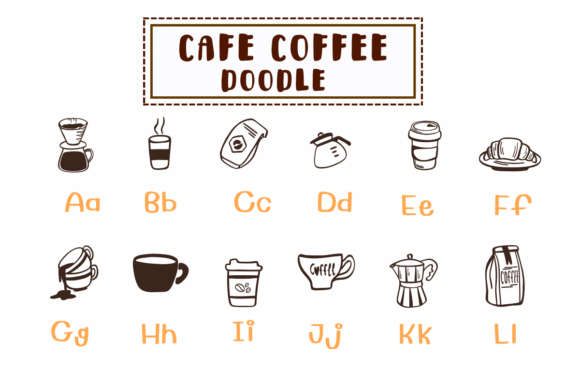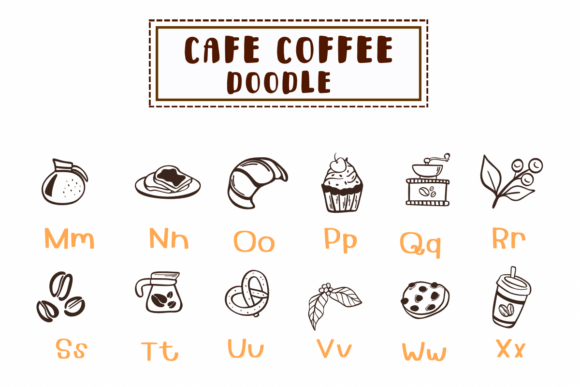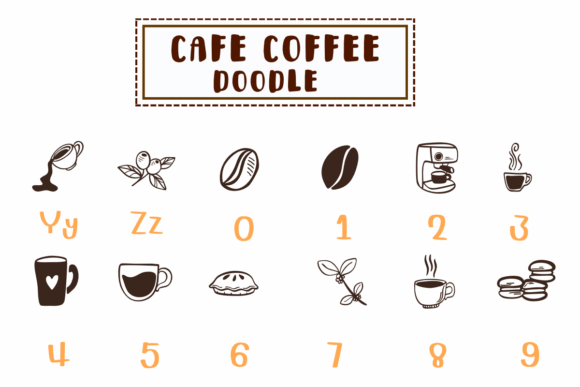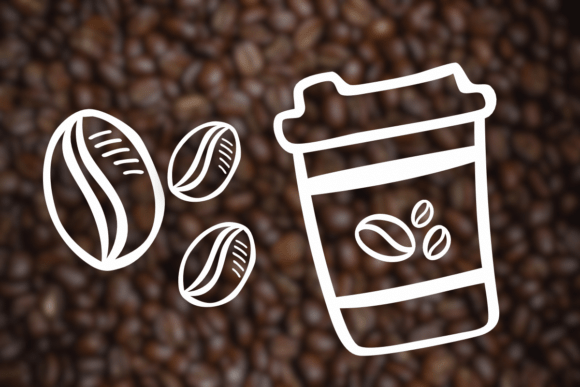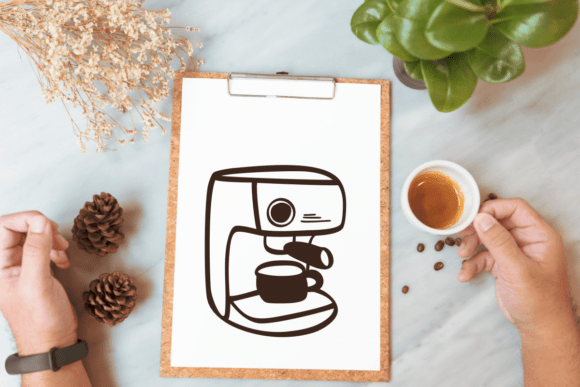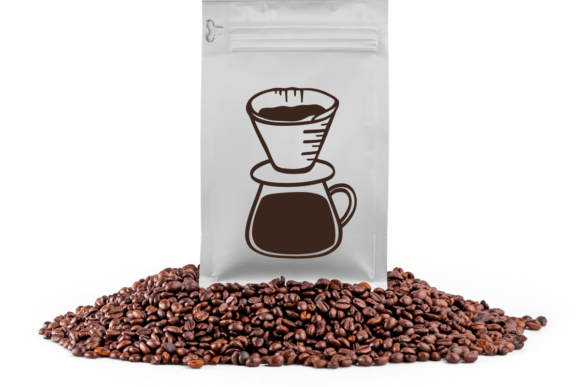
The Perfect Blend for Your Creative Projects
Have you ever found yourself sipping on a warm cup of coffee, surrounded by scribbled notes and half-baked ideas? That’s exactly where the magic happens for many creatives. The moment when inspiration strikes, and you’re eager to bring your vision to life. For designers, this moment is all about finding the right tools to enhance their projects.
Enter the Cafe Coffee Doodle Font, a delightful dingbats font with a delicious theme that’s sure to perk up your creative juices. This charming font is perfect for adding a personal touch to wedding invitations, DIY crafts, decorations, logos, and many other creative ideas. With the Cafe Coffee Doodle Font, you’ll be able to infuse your designs with a warm, inviting atmosphere that’s sure to captivate your audience.
Cafe Coffee Doodle Font Key Features
- Font Style: Hand-Drawn, Whimsical, Coffee-Themed
- Character Count: 250+ glyphs, including Latin, Cyrillic, and Greek alphabets, as well as various coffee-related symbols
- Unique Characteristics: Features a unique, hand-drawn design with subtle texture and imperfections, giving it a charming, artisanal feel
Cafe Coffee Doodle Font Review
Overall, I think the Cafe Coffee Doodle Font is a fun, playful font that’s perfect for those who want to add a touch of whimsy to their designs. ✨ The font’s doodle-like quality makes it great for illustrations, logos, and even social media graphics. It’s also quite versatile and can be used in a variety of contexts, from food and beverage branding to children’s products.
Here are some of the things that work well with this font:
- ✨ Unique doodle-like quality that sets it apart from other fonts
- ✨ Highly versatile and can be used in a variety of contexts
- ✨ Great for illustrations, logos, and social media graphics
- ⚠️ The font may be too playful or whimsical for more serious or professional designs
- ⚠️ Some users may find the font’s doodle-like quality distracting or overwhelming
- ⚠️ The font may not be suitable for text-heavy designs or body copy
Overall, I think the Cafe Coffee Doodle Font is a great choice for designers who want to add a touch of fun and whimsy to their designs. While it may have some limitations, it’s a great option for illustrations, logos, and social media graphics.
Use the Cafe Coffee Doodle Font to create a whimsical and playful atmosphere in your designs. Experiment with different font sizes, styles, and colors to add visual interest.
The Cafe Coffee Doodle Font is perfect for:
- Coffee shop menus and branding
- Food and beverage packaging
- Restaurant and cafe signage
- Invitations and event stationery